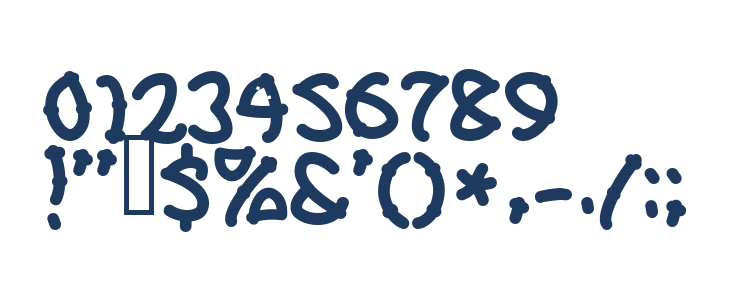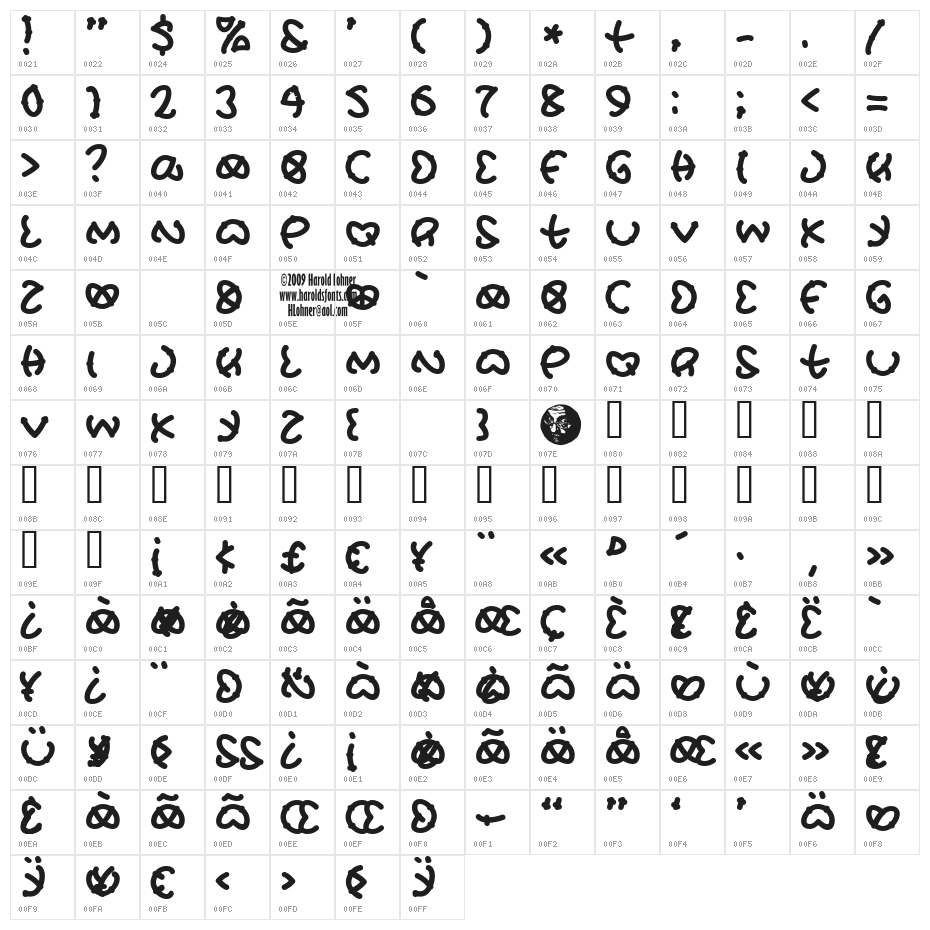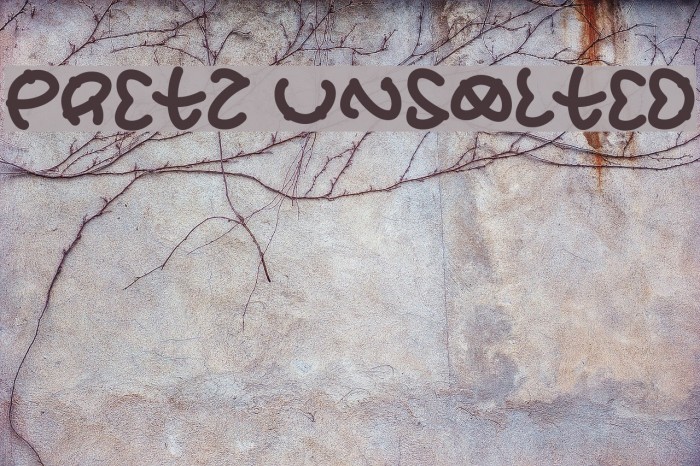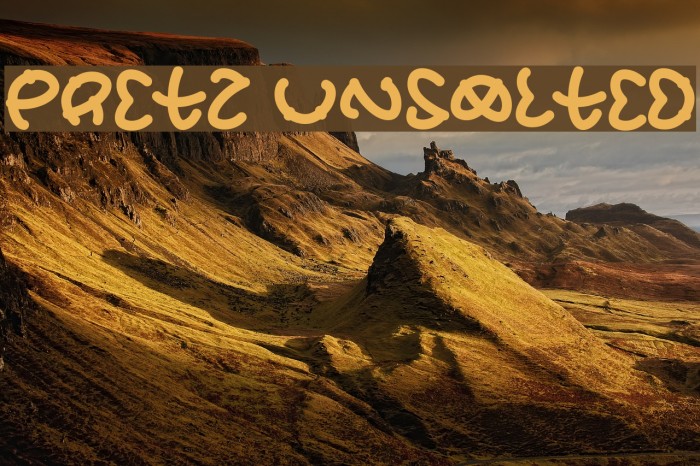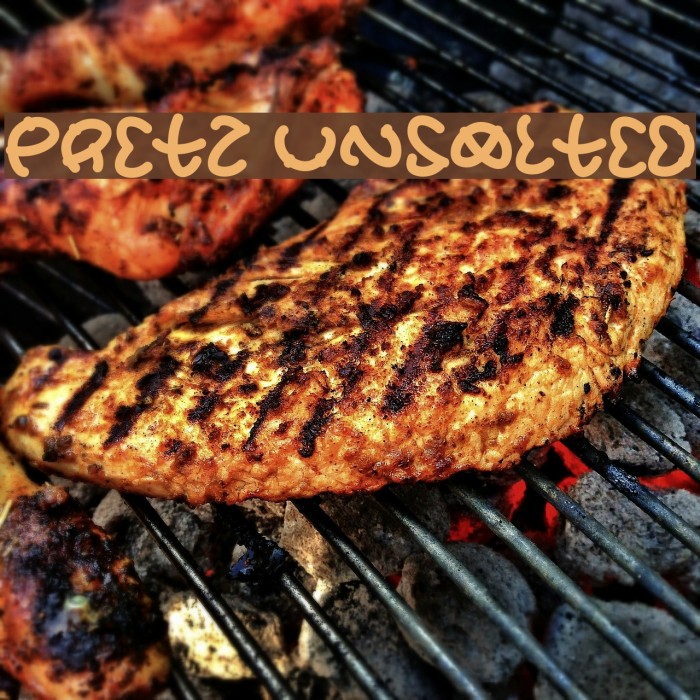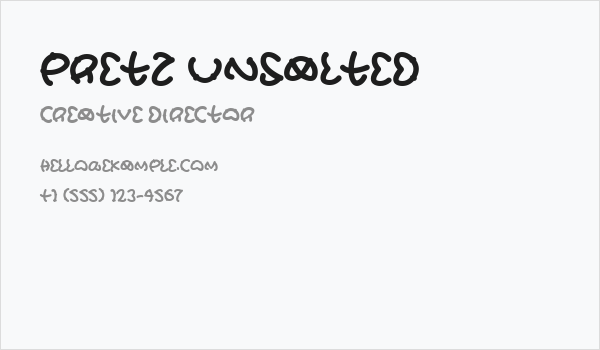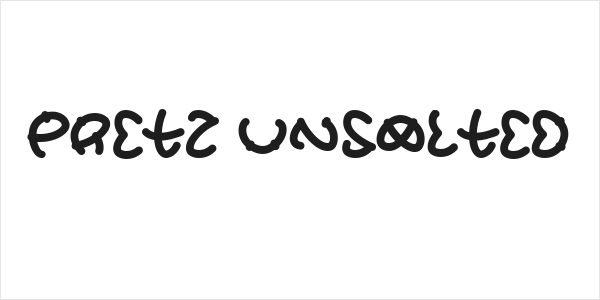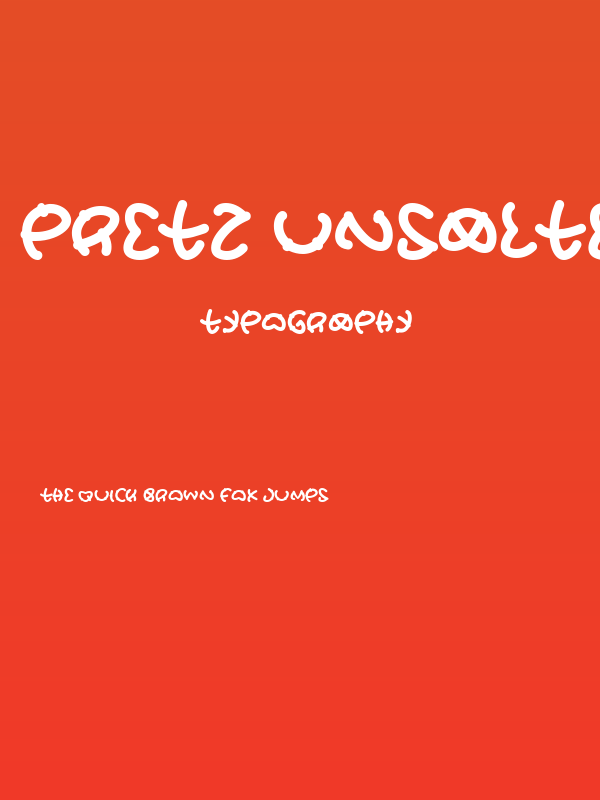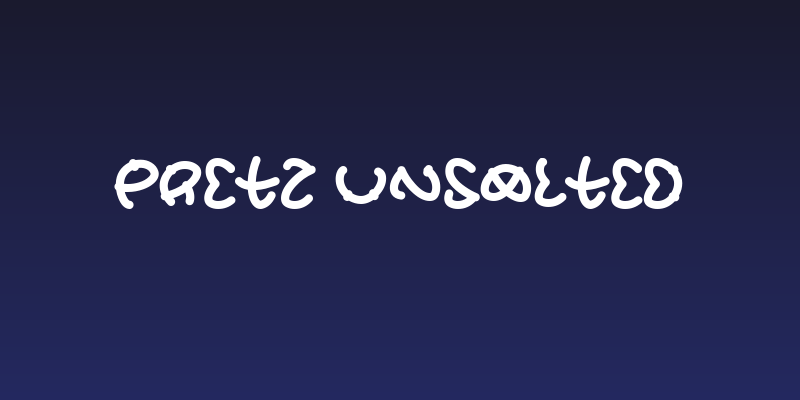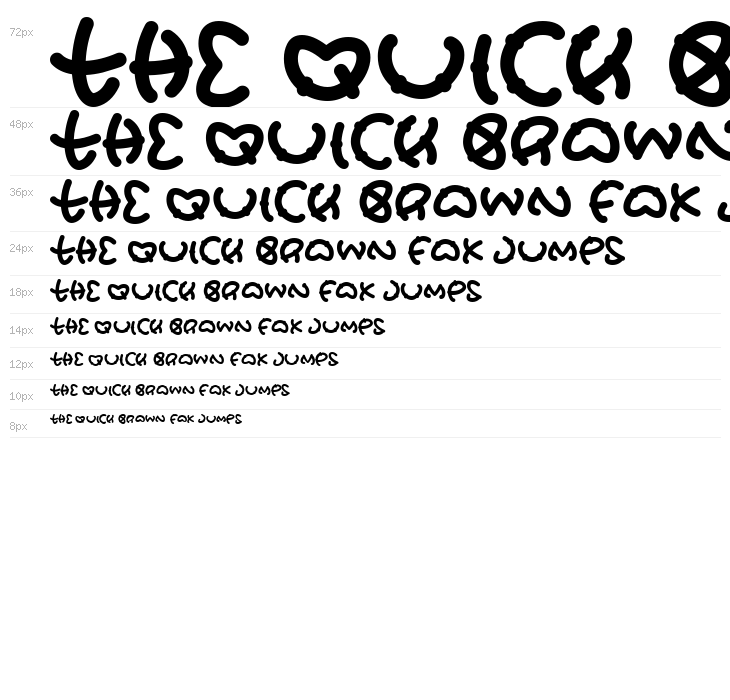
Pretz Unsalted Font
Pretz Unsalted Description
This playful and whimsical font features a unique, hand-drawn style that resembles the twists and turns of a pretzel. The characters are bold and rounded, with a consistent thickness throughout, giving it a cohesive and approachable appearance. The font has a casual and friendly vibe, making it ideal for projects that require a touch of fun and creativity. Its distinct style ensures that it stands out, while still maintaining readability. The numbers and special characters are designed with the same playful curves, ensuring uniformity across all glyphs.
| Overall Style | Whimsical and playful |
| Proposed Projects | Ideal for children's books, playful branding, casual invitations, and creative posters. |